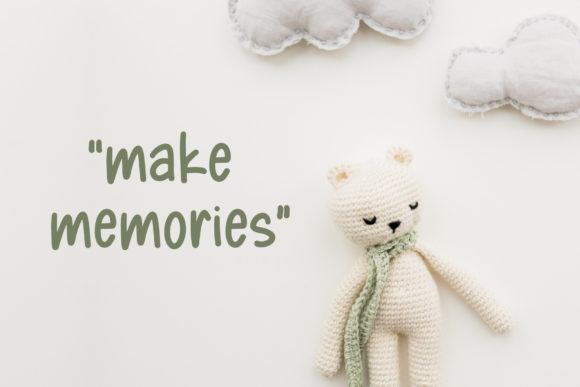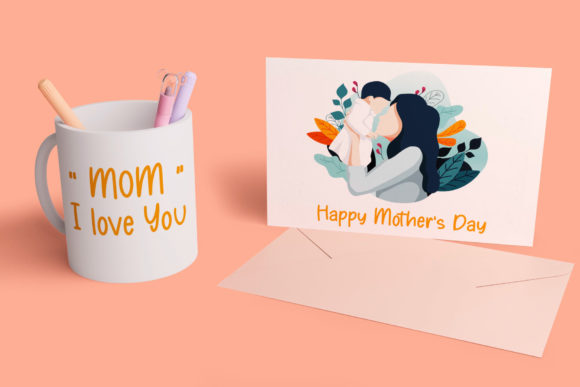
Children Play Font
About Children Play Font
Children Play  is a cute and casual handwritten font with an incredibly friendly feel. It features gorgeous swashes and ligatures that make this script incredibly versatile. Get inspired by its authentic feel and use it to create gorgeous wedding invitations, beautiful stationary art and much more.